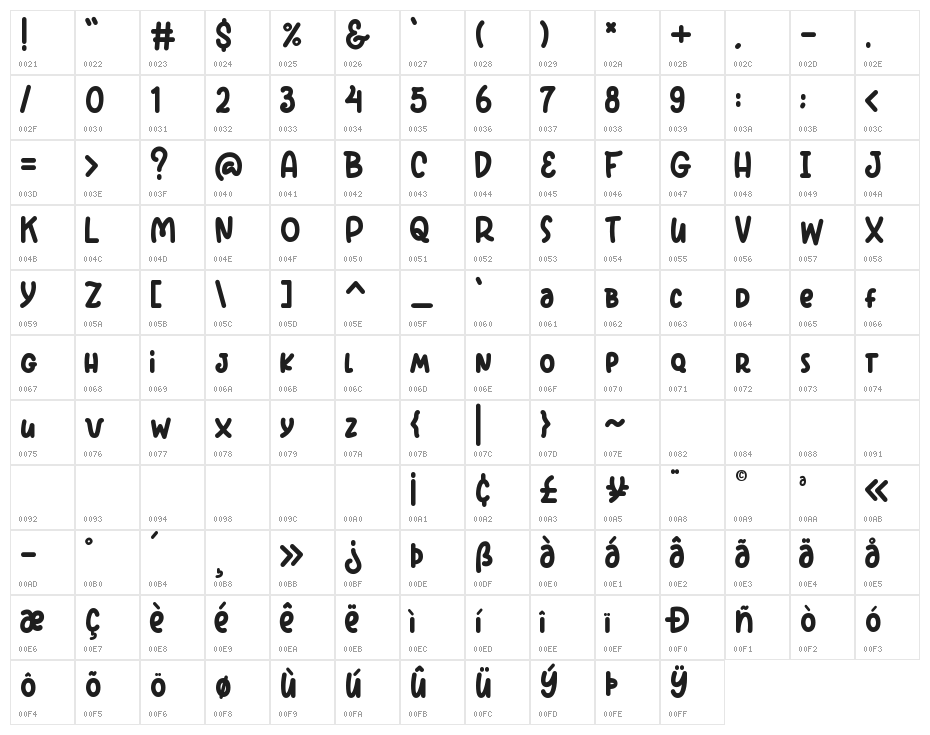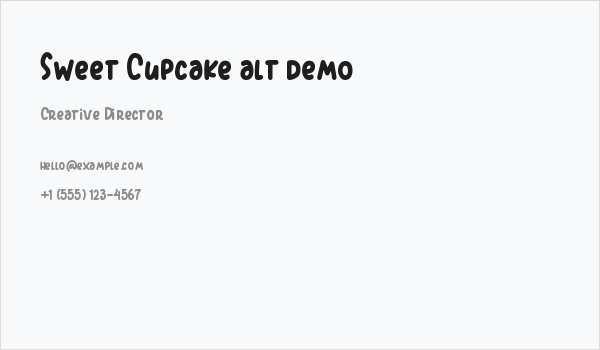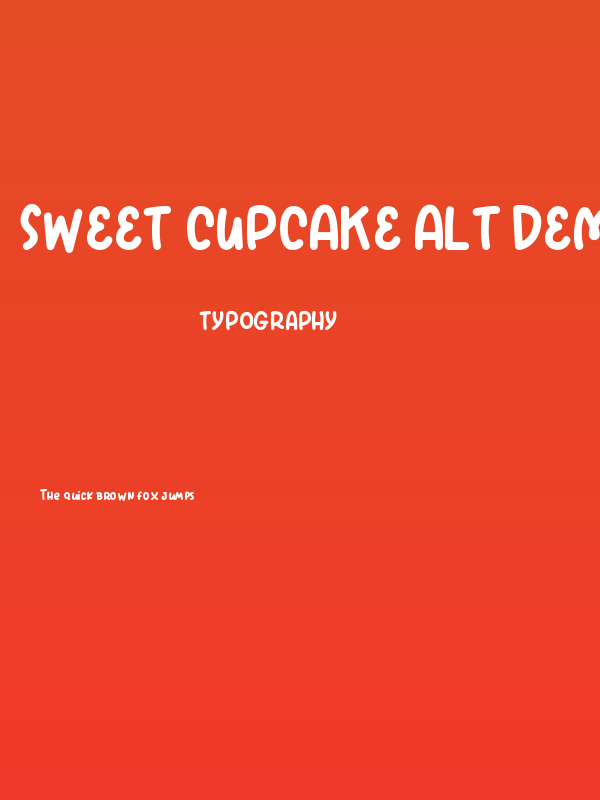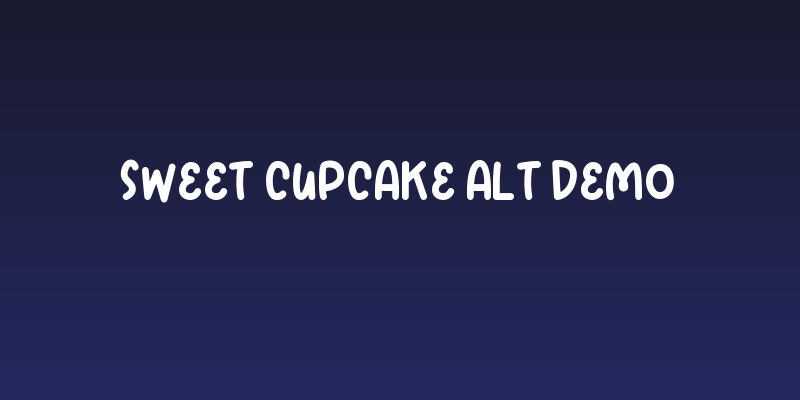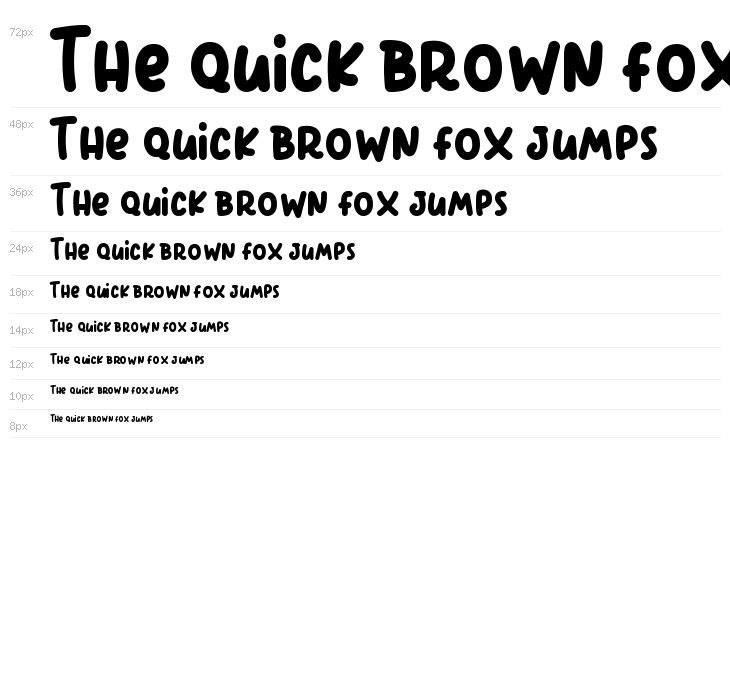
Sweet Cupcake alt demo Font
Sweet Cupcake alt demo Description
This playful and whimsical font features bold, rounded characters with a hand-drawn feel. The letters are slightly irregular, adding to the charm and casual style of the typeface. The uppercase and lowercase letters maintain a consistent weight, providing a cohesive look across different text settings. The numerals and special characters are designed with the same playful aesthetic, making them suitable for creative and informal projects. The font's overall appearance is friendly and approachable, ideal for designs that aim to convey a sense of fun and lightheartedness.
| Overall Style | Playful, Casual |
| Proposed Projects | Ideal for children's books, playful branding, party invitations, and casual social media graphics. |